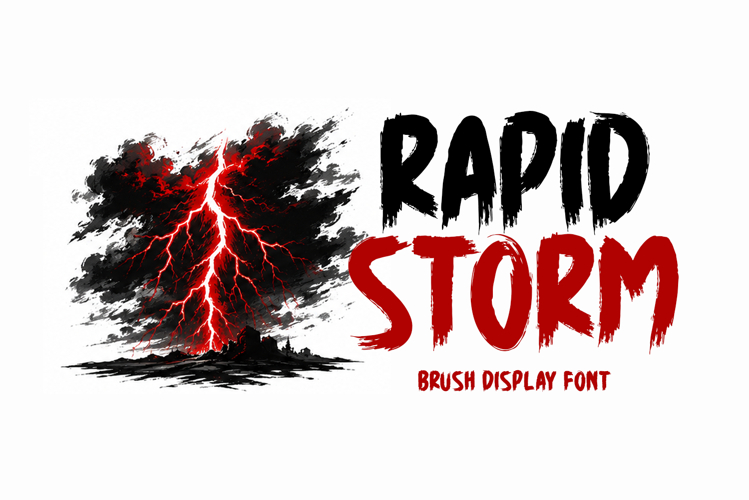
Rapid Storm is an intense brush font designed for powerful, energetic, and dramatic visual expression. It is ideal for creating posters, logos, branding, social media posts, YouTube thumbnails, movie titles, gaming graphics, sports designs, apparel prints, album covers, packaging, and promotional advertisements. The font delivers a raw, hand-painted brush style with bold strokes and aggressive motion, making it perfect for eye-catching and high-impact designs. Rapid Storm helps designers communicate strength, speed, and intensity in any creative project effectively.